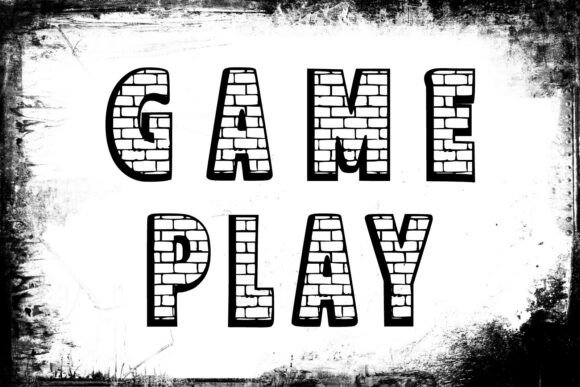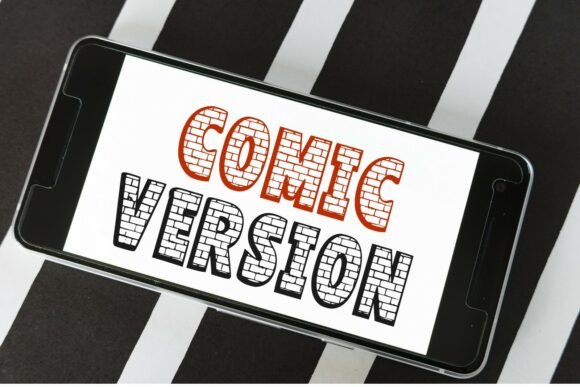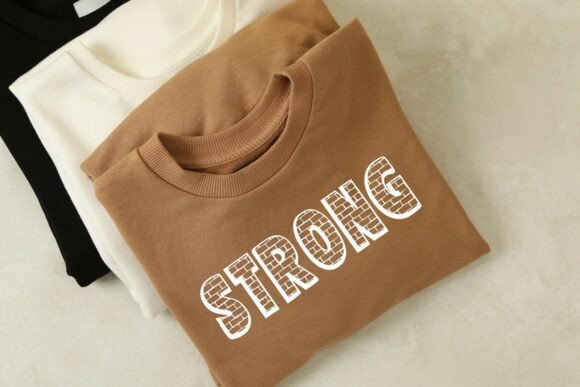
Introduction to Puzzle Game Font
As designers, we’ve all been there – staring at a blank canvas, searching for that perfect font to bring our creative project to life. And then, it happens – you stumble upon a font that’s so unique, so bold, and so full of character that it sets your imagination ablaze. For many of us, that font is Puzzle Game Font, a game-changing design resource that’s taken the world of typography by storm.
With its distinctive layered outline and hand-drawn brick wall texture, Puzzle Game Font is the perfect solution for designers looking to add a touch of whimsy and playfulness to their work. Whether you’re working on a kids’ game, a puzzle book, or an educational material, this high-quality font is sure to elevate your design and make it stand out from the crowd. And the best part? You can download it for free, making it an invaluable resource for designers on a budget.
So, what are you waiting for? Dive into the world of Puzzle Game Font and discover a design resource that’s sure to inspire your next creative project. With its transparent background and all-caps character set, this font is perfect for both digital and print projects, making it a valuable addition to any designer’s toolkit.
Puzzle Game Font
- High-quality design resource suitable for creative projects and puzzle games
- Transparent background for seamless integration into various game environments
- Available in 6 different font sizes, ranging from 24px to 72px, to suit various game elements
- Resolution-independent design for crisp and clear display on high-resolution screens
- Perfect for use in game menus, buttons, and other UI elements, as well as for creating custom game assets
- Easy to customize and modify to fit the unique needs of your puzzle game project
Honest Review: Puzzle Game Font
I recently had the chance to work with the Puzzle Game Font, and I must say it’s been a game-changer for my creative project. The font is incredibly versatile and can be used for a wide range of design elements, from menus to scoreboards.
One of the standout features of the Puzzle Game Font is its high quality. The characters are well-designed and have a clean, modern aesthetic that works well for a variety of design styles. I particularly like that the font has a transparent background, which makes it easy to layer and composite with other design elements.
- High-quality design: The Puzzle Game Font is well-crafted and looks great on both digital and printed materials.
- Transparent background: This feature makes it easy to use the font in a variety of design scenarios.
One of the main limitations of the Puzzle Game Font is its limited character set. While it includes a good selection of letters and numbers, it’s not suitable for use in a full-fledged text editor. Additionally, the font may not be as readable at smaller sizes.
Overall, I’m really impressed with the Puzzle Game Font and would definitely recommend it to designers looking for a high-quality, free design resource for their creative project.
To get the most out of Puzzle Game Font, use it in creative projects where a unique and eye-catching font is desired. Experiment with different font sizes, colors, and styles to create a visually appealing design.
Puzzle Game Font is commonly used in game development, graphic design, and advertising. Its unique design makes it suitable for creating attention-grabbing headlines, titles, and other text elements.